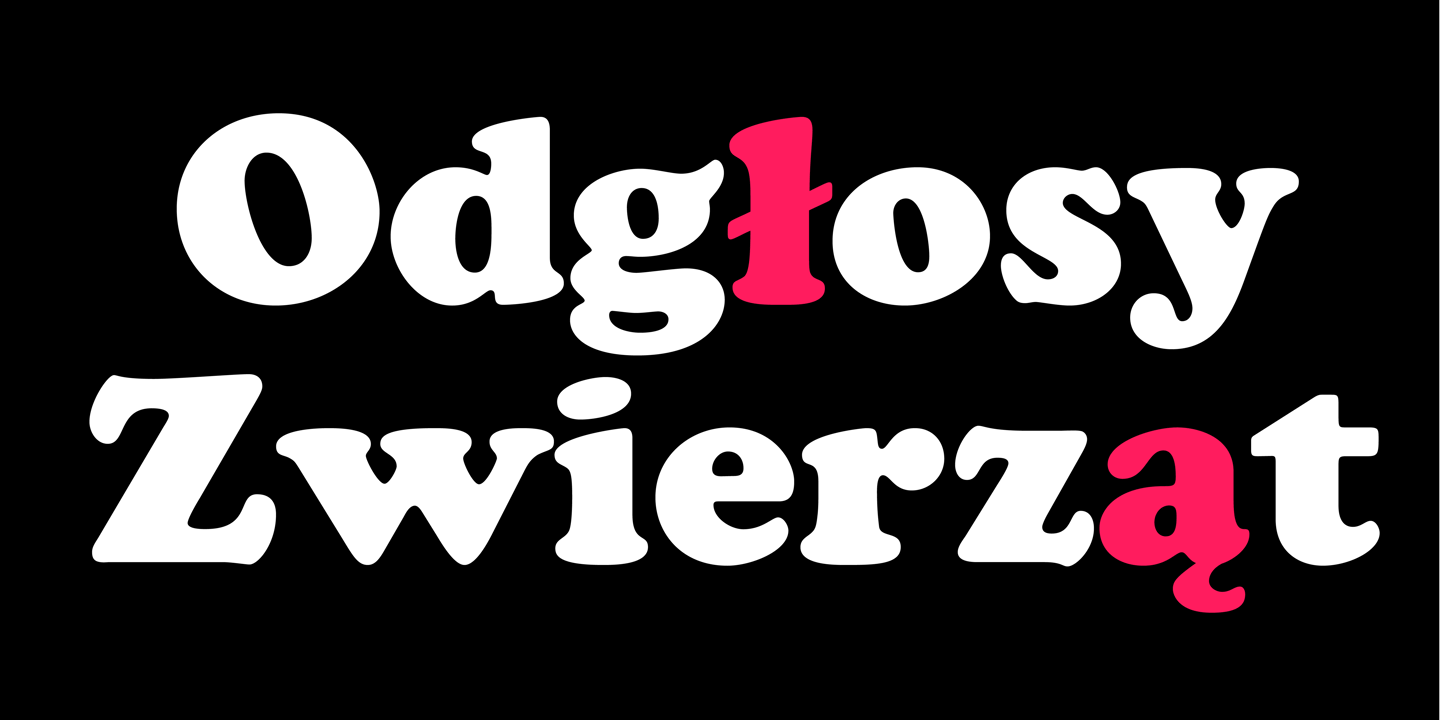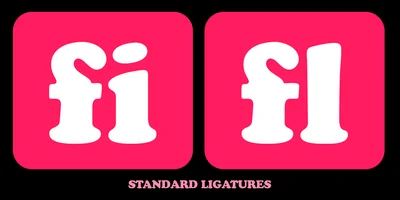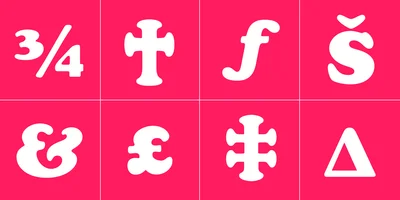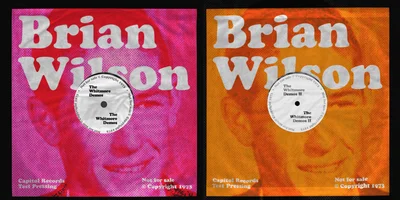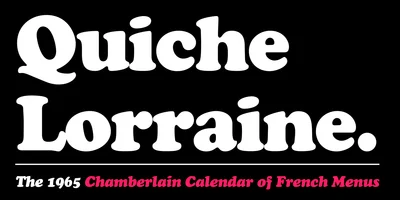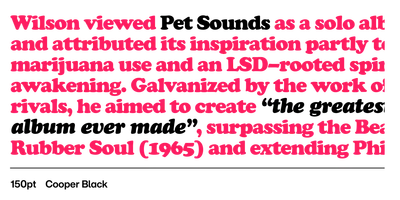
Brush Script vs Cooper Black
Brush Script and Cooper Black are both display typefaces sharing a retro foundation. Where Brush Script leans script, handwritten, Cooper Black brings bold, rounded. Compare which suits your Packaging project.
Design overlap:33%
| Feature | Brush Script | Cooper Black |
| Classification | display | display |
| Language Support | latin | latin, latin-extended |
| Source | Linotype | Barnhart Brothers & Spindler |
Typography evoking past eras, vintage aesthetics, and nostalgic design. Retro fo...
Typography for wedding invitations, event invitations, and formal announcements....
Recommended: Brush Script
- script, handwritten design character
- Suited for Casual and Retro
- From linotype
Consider: Cooper Black
- bold, rounded design character
- Suited for Display and Advertising
- From bb-and-s